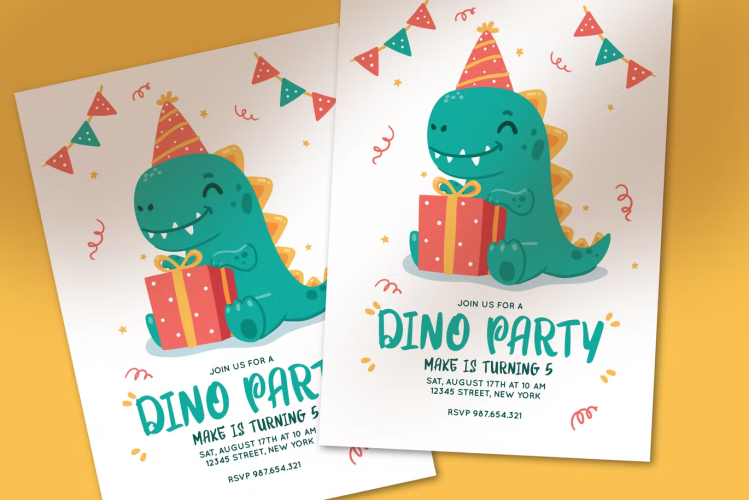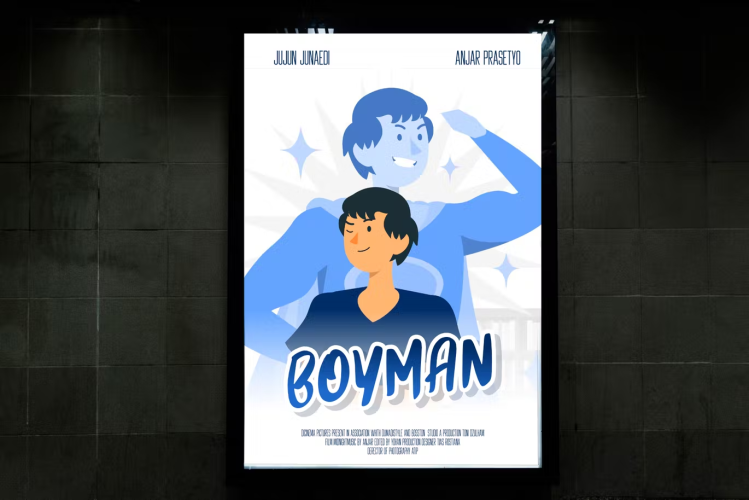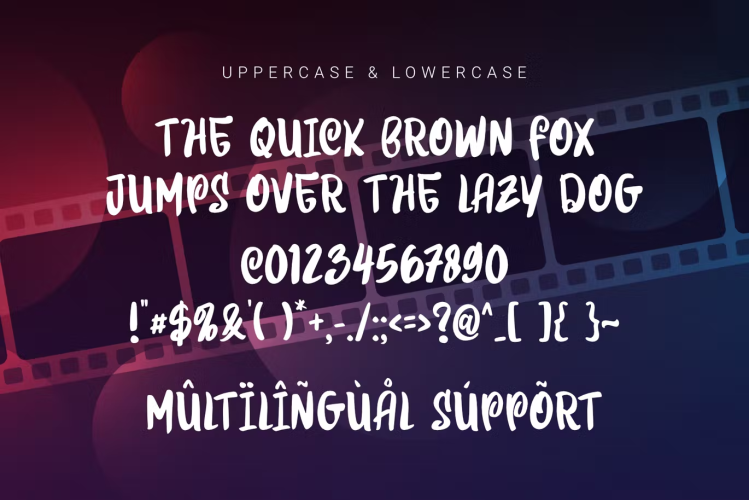
DS Summer Cinema Display Font
Make your designs the center of attention with the Summer Cinema font!
Unique, funny and awesome is a suitable nickname for this font. Summer Cinema was designed with passion to help designers achieve impeccable quality.
You can see the sample preview above for comparison, stay the center of attention and classy!
Where DS Summer Cinema Display Font works best
Seasonal campaigns
DS Summer Cinema Display Font gives a holiday or themed promotion its own look without redrawing anything; use it for the headline only.
Party and family invitations
Decorative letters set the mood before the text is read. Pair DS Summer Cinema Display Font with a plain sans for the practical details.
Game and video titles
Themed lettering sells the world of a game or a channel in one frame.